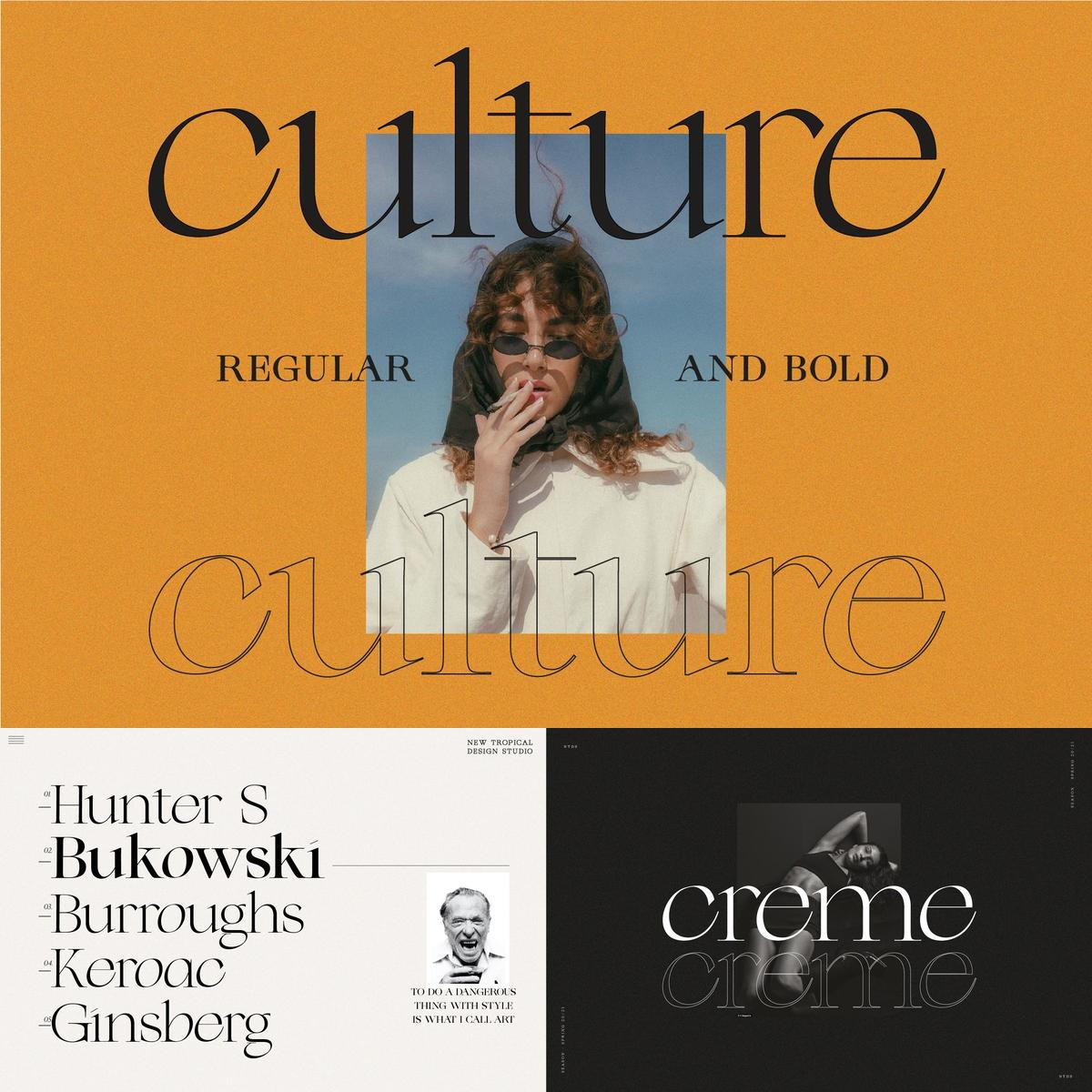
Culture is an edgy modern serif font. It's long serifs and off axis curves make it a unique high contrast typeface that is all style. It comes in regular and bold with a lower and uppercase, numbers, punctuation plus multilingual letters. A must have for any modern graphic designer!